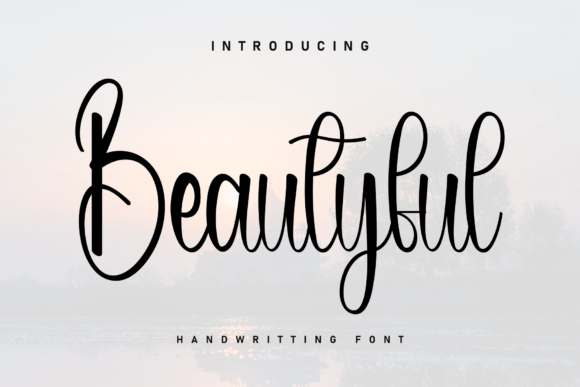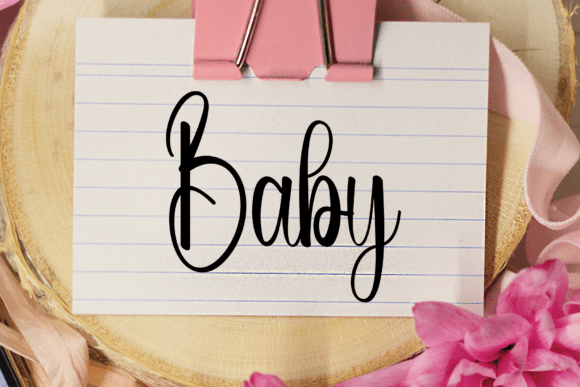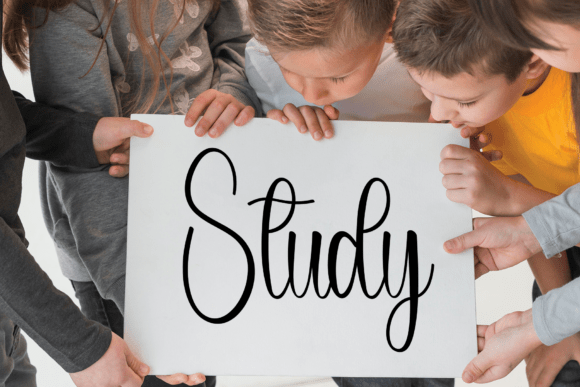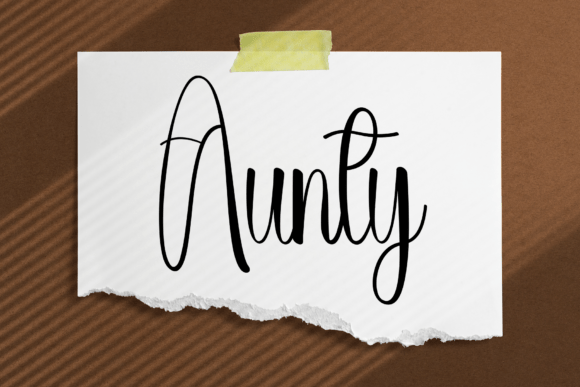
Beautyful Script Fonts
Infuse your layouts with the effortless grace of Beautyful, a script that captures the essence of human touch through its seamless, rhythmic curves. Designed to radiate an air of tranquil sophistication, this typeface bridges the gap between meticulous craftsmanship and a laid-back, approachable aesthetic. It is an ideal choice for designers looking to add a layer of sincerity to lifestyle branding, bespoke event stationery, or high-impact social narratives.